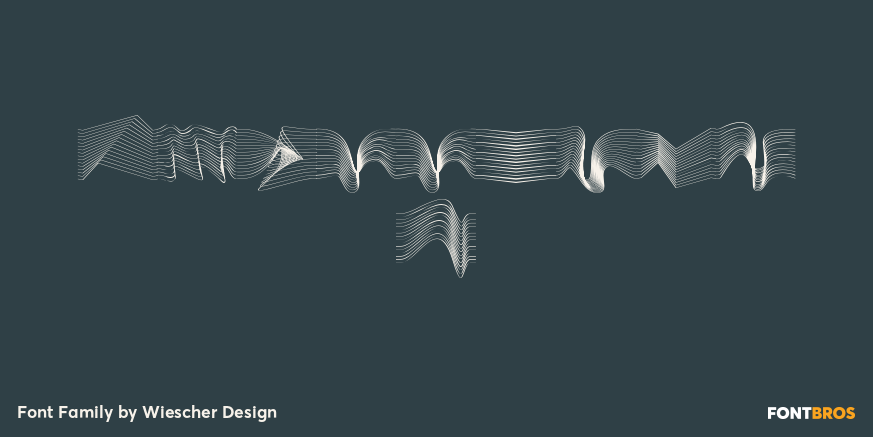
Guilloche A
About Guilloche A
Guilloches were ? in the old days ? used to make the falsification of banknotes more difficult. The engraving of these intricate lines was done by a highly specialized mechanical machine, which was operated by an equally highly specialized engraving artist.…